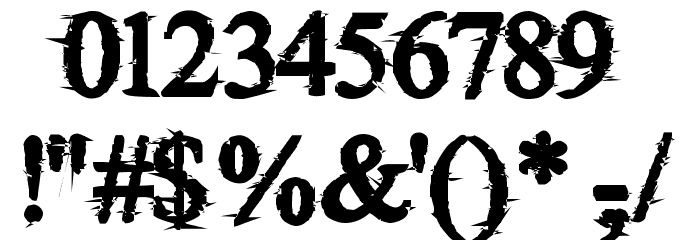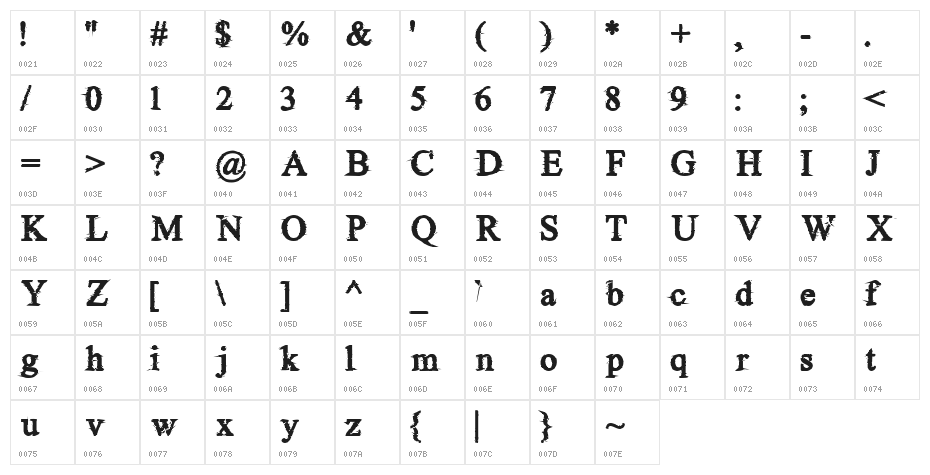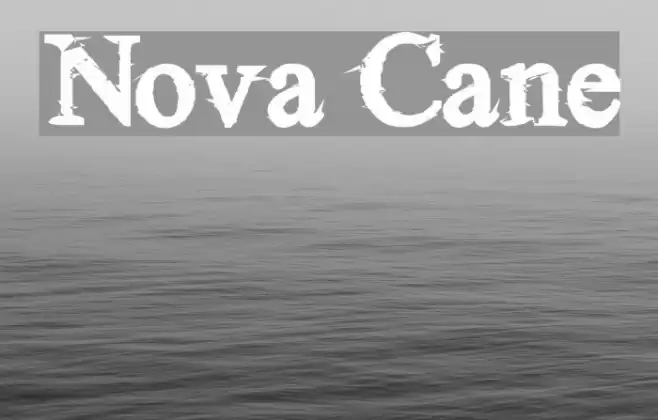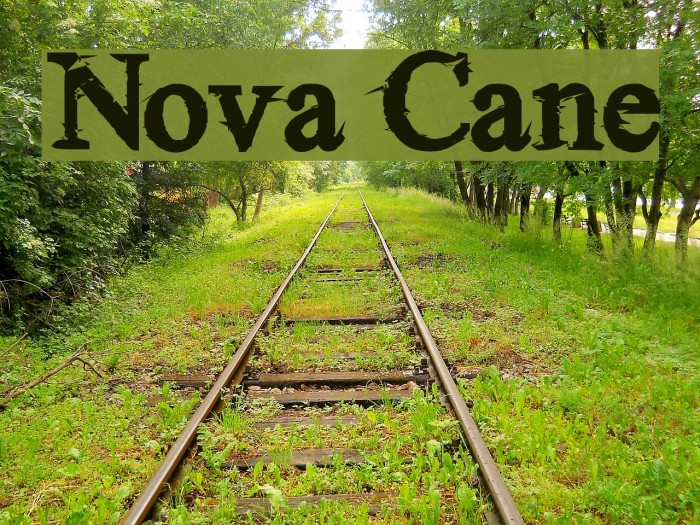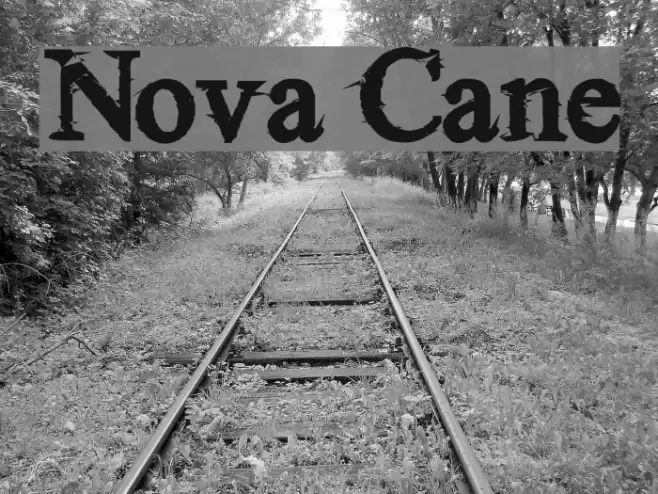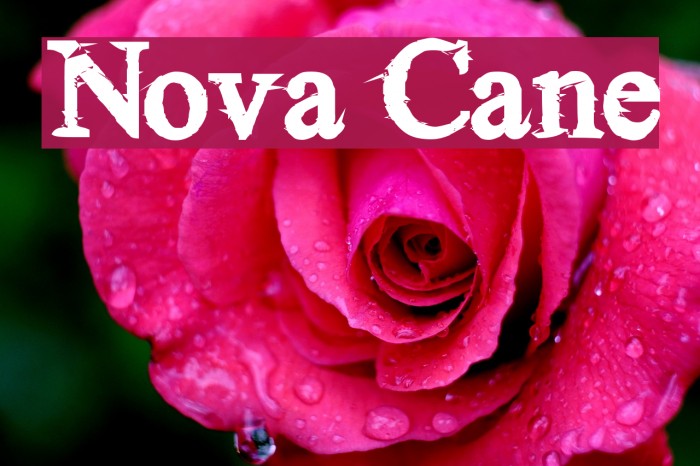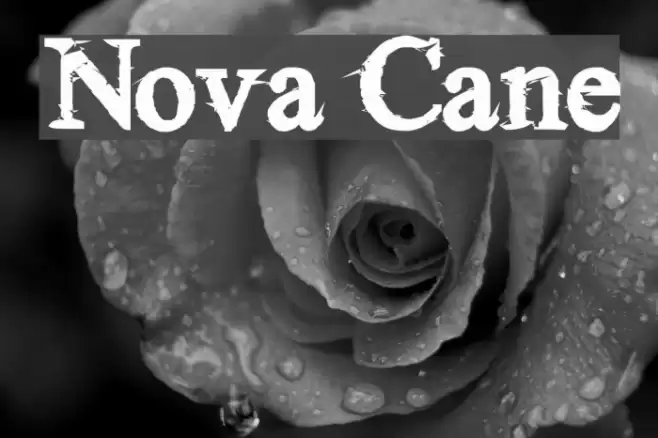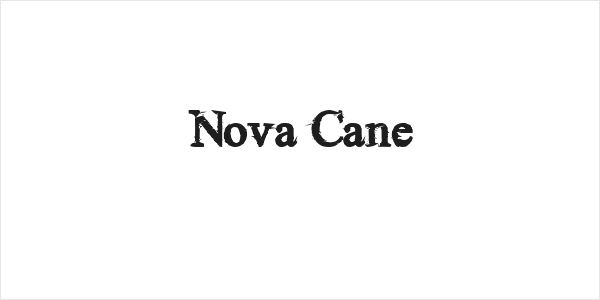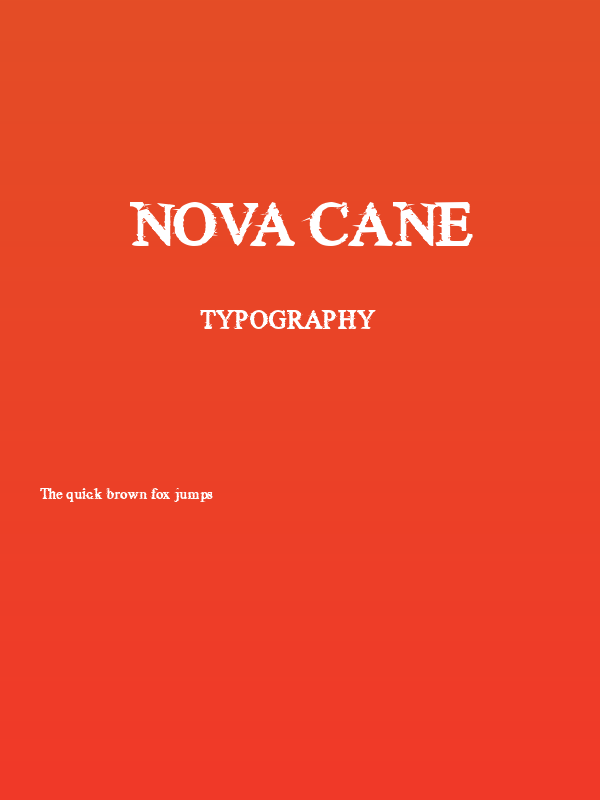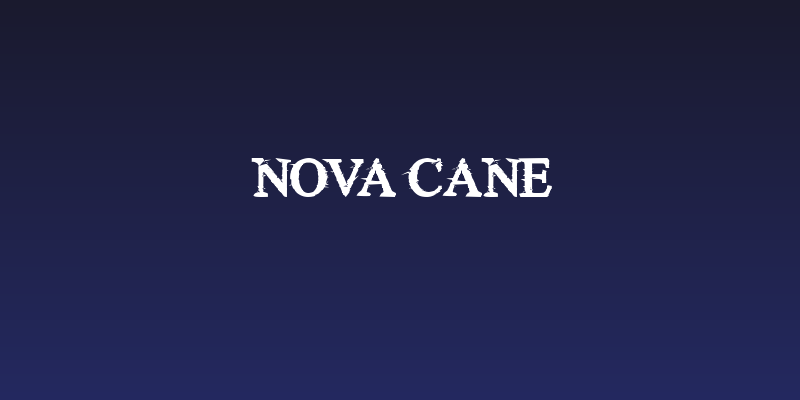
Nova Cane Font
Nova Cane Description
This font exhibits a bold and distressed style, characterized by rough, jagged edges and a textured appearance that gives it a grunge or urban feel. The letters are uppercase and lowercase, with numerals and a variety of special characters. The design is highly decorative, making it stand out with its unique, edgy look. The strokes are uneven, adding to the chaotic and dynamic aesthetic, which can evoke a sense of rebellion or nonconformity. This font is ideal for projects that require a strong visual impact and a touch of ruggedness.
| Overall Style | Grunge, Urban |
| Proposed Projects | Album covers, posters, streetwear branding, skateboarding graphics, and event flyers. |